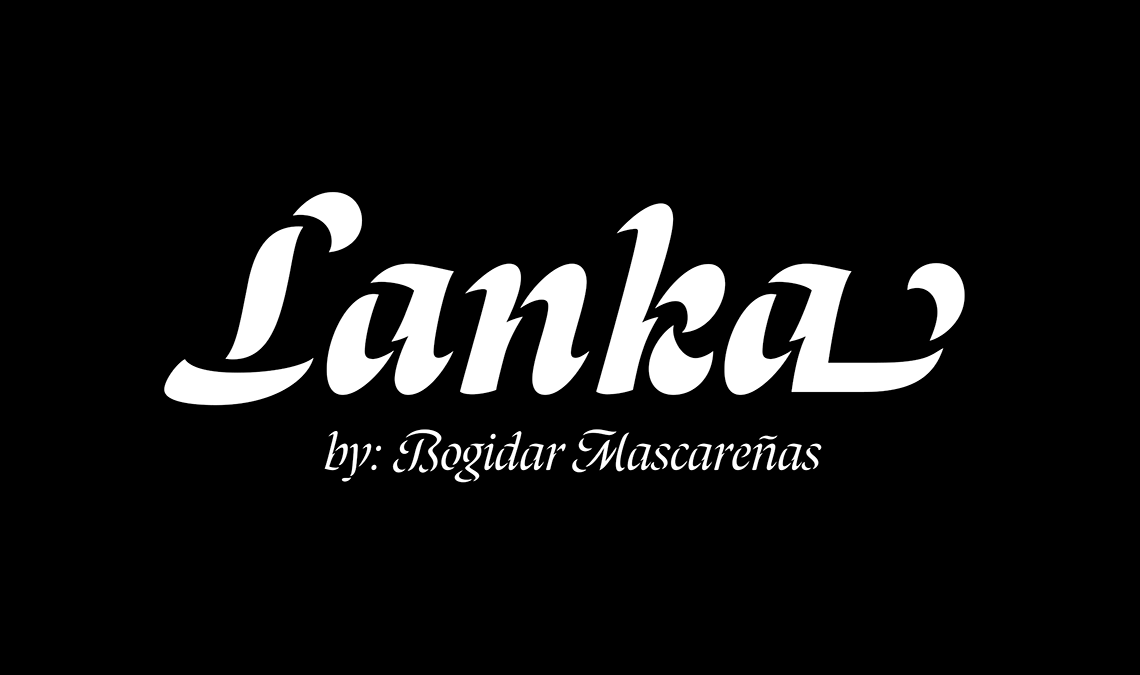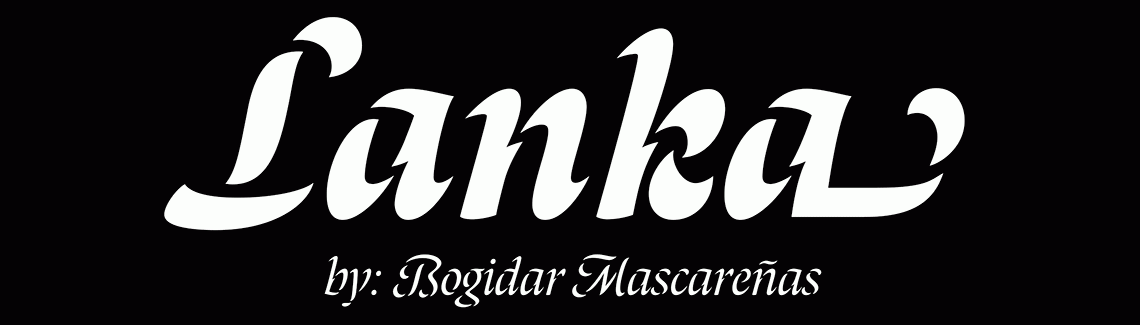
We are delighted to announce the recipient of the fourth Gerard Unger Scholarship (previously, Typeface Publishing Incentive Programme) result, Lanka, a typeface by Bogidar Mascareñas.
LANKA
Lanka is Bogidar Mascareñas’s graduation project during his studies at Type and Media 2015-2016. Lanka explores the possibilities of stencil letters and calligraphic forms. It is inspired by the work of the Spanish calligrapher Francisco Palomares in his book Arte nueva de escribir (1776). The eye-catching stencil display will include several weights and the corresponding italics. However, the text styles from the original projects are not to be missed. We are looking forward to start working with Bogidar and take Lanka to the next level.